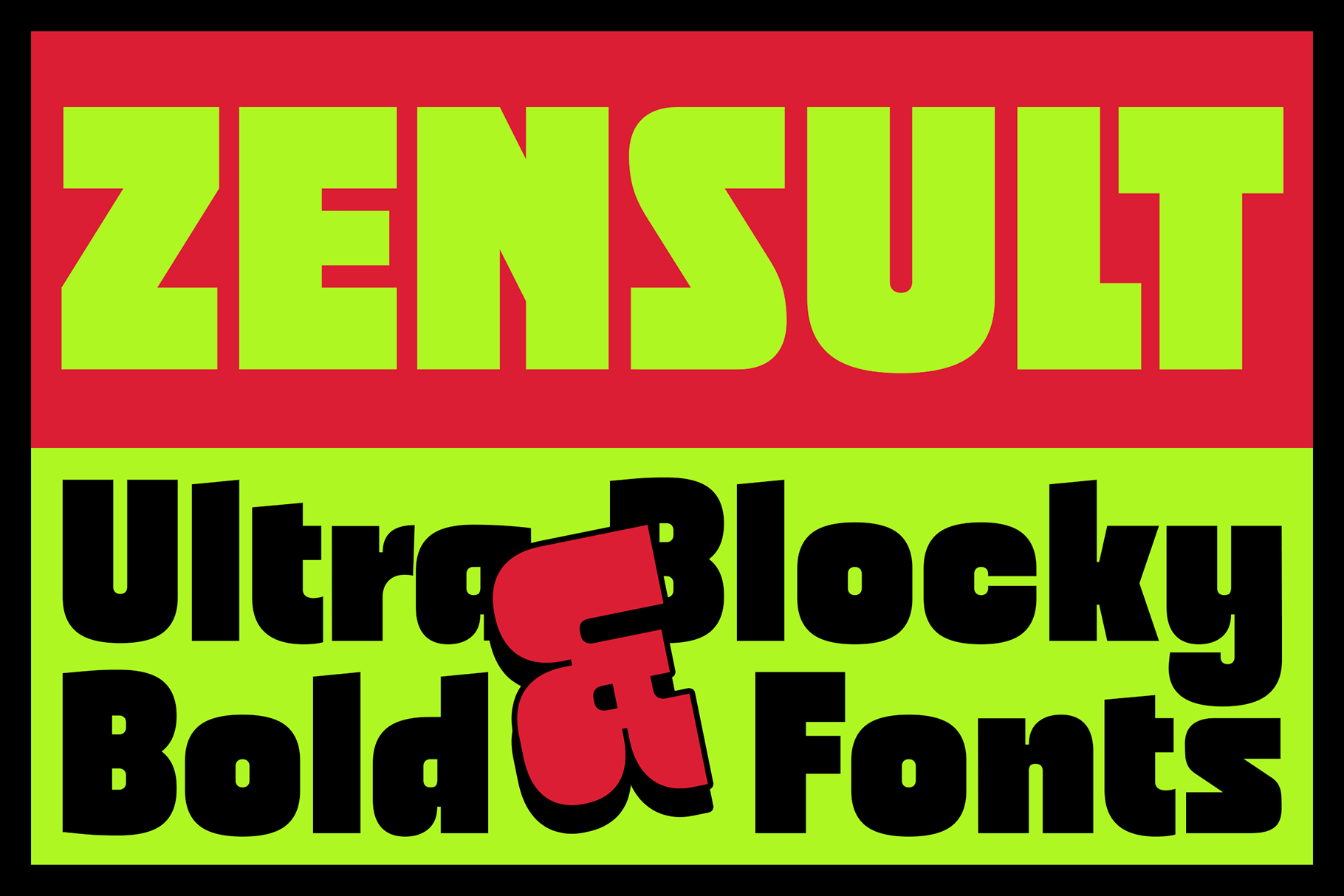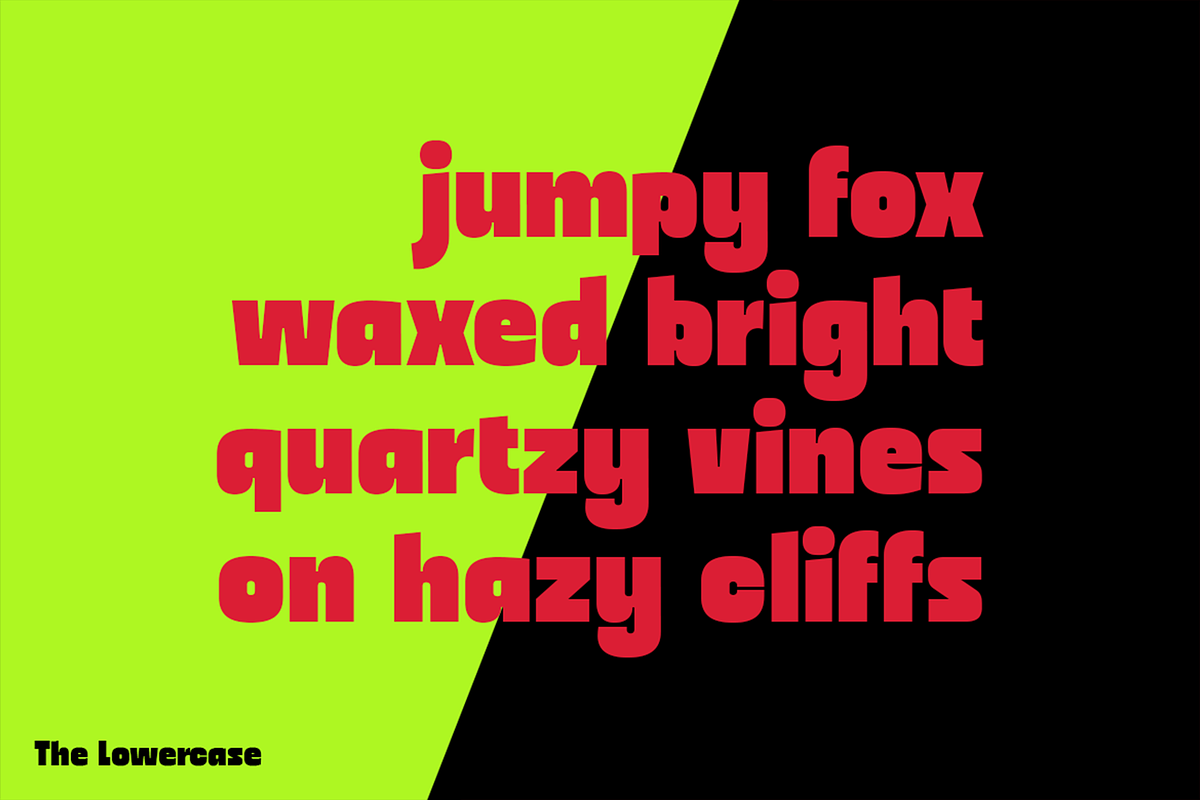
Zensult - Ultra Bold Blocky Fonts
Step into a time machine and unleash the vibrant, unapologetic energy of the past with Zensult. This isn't just a font; it's a bold statement, a design revolution inspired by the iconic, eye-popping aesthetics of retro pop culture.
Remember the days of Saturday morning cartoons, the dynamic layouts of comic book panels, and the bold headlines of vintage movie posters? Zensult captures that very spirit. With its ultra-blocky, irresistibly bold letterforms and a playful, colorful vibe, this typeface is a nostalgic nod to the golden age of visual communication.
What makes Zensult a must-have for your design arsenal?
Retro-Inspired Boldness: Each character is a tribute to the chunky, in-your-face typography that defined an era. It's built for impact and impossible to ignore.
Pop Culture DNA: Influenced by the vibrant world of comics, record albums, book covers, and vintage advertising, Zensult brings a powerful, memorable personality to every project.
Versatility in Vibe: Whether you're aiming for fun and playful or strong and commanding, this font adapts effortlessly, carrying the weight of your message with style.
The perfect choice for:
Branding & Logos: Create a memorable, distinctive brand identity that stands out from the crowd.
Headlines & Posters: Grab attention instantly with headlines that pop on movie posters, event flyers, and digital banners.
Album & Book Covers: Give your music or story a visual identity that's as unique and bold as its content.
Social Media Graphics: Make your feed unscrollable with dynamic, eye-catching visuals.
Don't just design—make a scene. Bring the electric energy of retro pop to your work and captivate your audience with a font that's a blast from the past and a hit for the future.